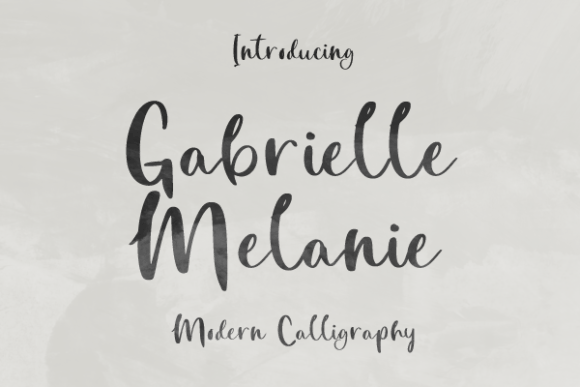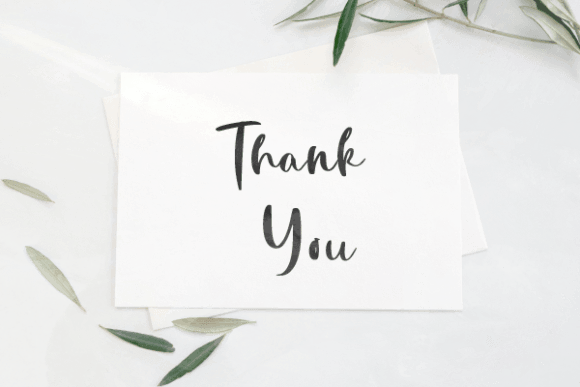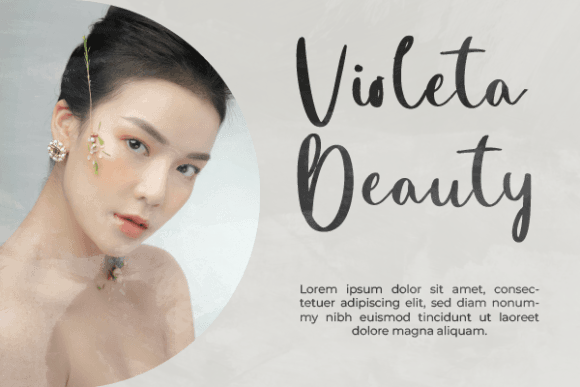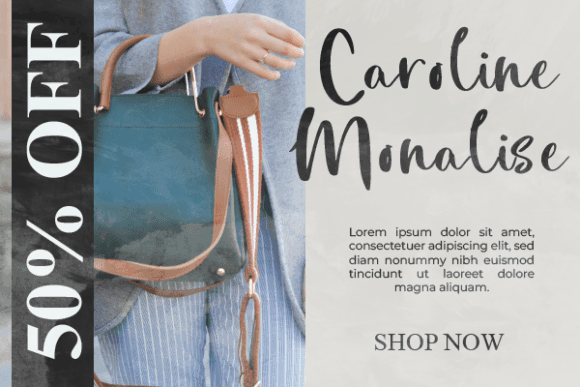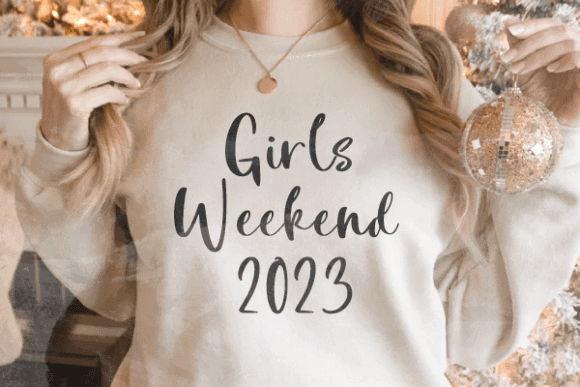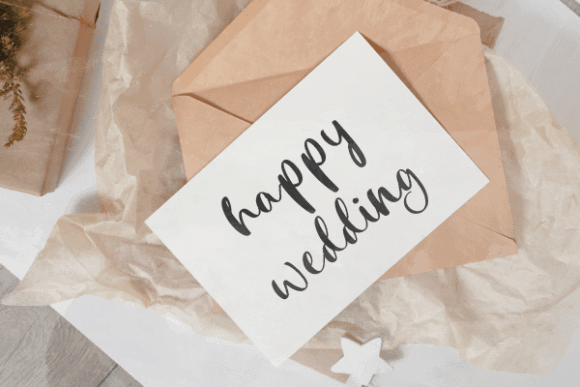
About Gabrielle Melanie
Gabrielle Melanie feels equally charming and elegant. It looks stunning on wedding invitations, thank you cards, quotes, greeting cards, logos, business cards, and every other design which needs a handwritten touch.